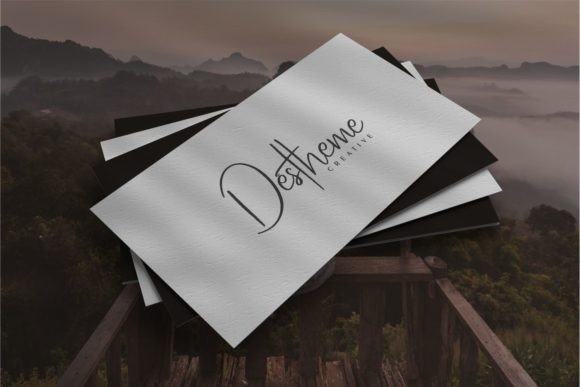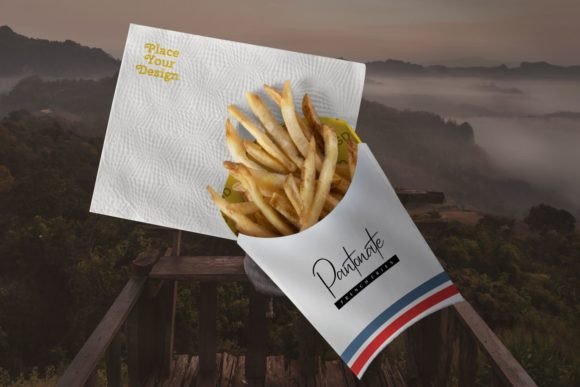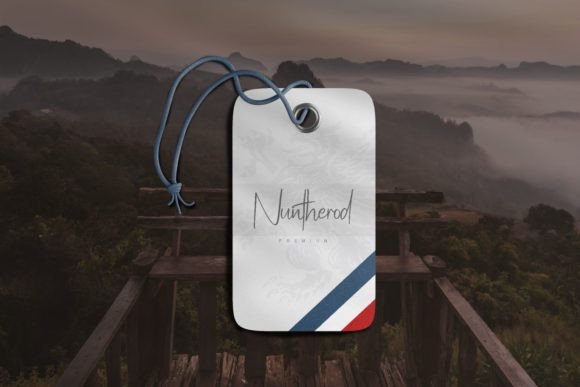
Introduction to Rathella Font
As a designer, there’s nothing quite like the thrill of finding the perfect font to elevate your creative project. The moment when the words come together in perfect harmony, and the design just feels right – it’s a feeling that’s hard to beat. For many of us, that moment comes when we stumble upon a unique and beautiful script font like Rathella Font.
Rathella Font is a stunning modern script font with a calligraphy style that’s sure to add a touch of elegance to any design. With its high-quality lines and curves, it’s perfect for invitations, greeting cards, branding materials, business cards, quotes, posters, and more. Whether you’re a seasoned designer or just starting out, Rathella Font is an invaluable resource that will help you create stunning designs with ease.
Key Features of Rathella Font
- High-quality, professional font design ideal for creative projects and designs.
- Translucent background, allowing for a transparent look that blends well with any design element.
- Designed as a design resource for creative professionals, offering a unique and stylish touch to any project.
- Perfect for use in graphic design, digital art, and other creative projects where a unique and stylish font is required.
Honest Review: Rathella Font
I recently stumbled upon the Rathella Font, and I’m excited to share my thoughts on this design resource. As a designer, I’m always on the lookout for high-quality fonts to elevate my creative projects.
- Unique and modern design aesthetic
- Transparent background option for versatility
- Limited font styles and weights (only 3 styles available)
Overall, I’m impressed with the Rathella Font’s design and quality. However, the limited font styles and lack of webfont option might be a drawback for some designers. If you’re looking for a unique, modern font for a creative project, the Rathella Font is definitely worth considering. Just be aware of its limitations and plan accordingly.
Tips for Getting the Most Out of Rathella Font
To get the most out of Rathella Font, use it on a transparent background to create a high-quality design. You can also combine it with other design elements, such as icons and graphics, to create a unique and creative project.
Common Use Cases for Rathella Font
The Rathella Font is ideal for use in creative projects, such as branding, marketing materials, and web design. Its high-quality design and transparent background make it perfect for use in a variety of applications, including business cards, brochures, and social media graphics.